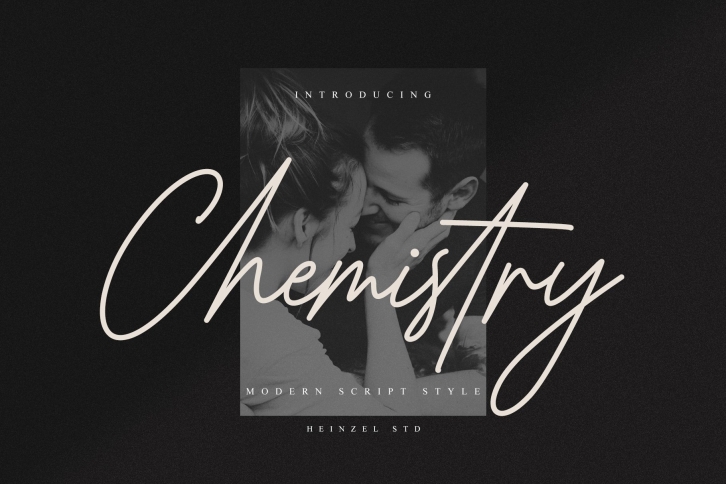
Chemistry Signature is a beautiful font that was designed by Heinzel Std. It's a great choice for designers and creatives who need such a font. It was released on April 25, 2021 and the file size is 9.60 MB. Chemistry Signature may give a more youthful, expressive and casual look to your project. It is a very beautiful, refined, elegant, and high-quality font.